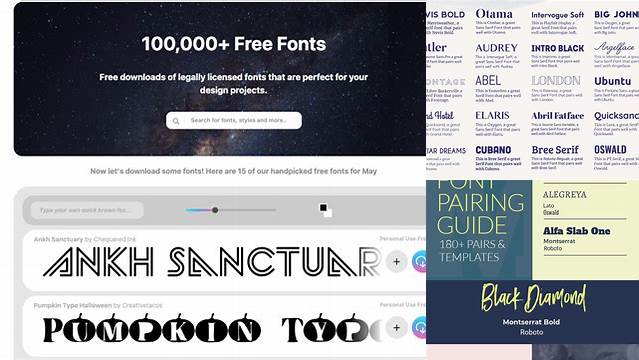
Top Free Font Downloads: Your Ultimate Guide
Hey guys, are you on the hunt for some awesome fonts but don't want to break the bank? You're in the right place! Finding the best sites to download free fonts can feel like a treasure hunt, but don't worry, I've done the digging for you. This guide is packed with the top spots to snag those perfect typefaces, tips on what to look for, and how to use them like a pro. So, grab a coffee, get comfy, and let's dive into the wonderful world of free fonts!
1. Unveiling the Giants: Top Platforms for Free Font Downloads
When it comes to finding the best sites to download free fonts, a few names always pop up. These platforms have built a solid reputation for their massive libraries, user-friendly interfaces, and, most importantly, the quality of the fonts they offer. Let's take a look at some of the giants in the font world and what makes them so special.
One of the first sites to check out is Google Fonts. It's a fantastic resource because it's completely free and open-source. Google Fonts boasts a huge collection, with a huge variety of styles, weights, and languages supported. You can easily browse fonts based on their categories, like serif, sans-serif, display, handwriting, and monospace. This is super helpful if you already have an idea of the vibe you are going for. Plus, they've got font pairing suggestions, which is a total lifesaver if you are not a typography expert. The best part? You can download the fonts or embed them directly into your website, making it super convenient for web design. The interface is intuitive and you can even try out the fonts in real time with your own text. It is easy to see why it's such a go-to for designers and developers alike. Another great advantage of Google Fonts is that it's integrated with a lot of design software, meaning you can easily access the fonts in programs like Canva or Adobe products.
Next up, we've got DaFont. This site is a true veteran in the free font game and has a vast library that's been curated over many years. DaFont is a paradise for finding a huge diversity of font styles, from classic to super quirky. The downside is that you should always read the license information on each font because some fonts are free for personal use, but may require a commercial license. This is crucial to avoid any copyright issues. They organize their fonts very creatively, using categories like 'theme', 'style', and 'author'. So whether you're searching for something fancy, something cute, or something with a sci-fi twist, it has a great way of making it easy to find what you are looking for. But always double-check the licensing before using them in any projects. It's generally a good idea to download fonts from reputable sites like these, because you are more likely to find safe and high-quality fonts.
Finally, there is Font Squirrel. This site is all about quality over quantity. Font Squirrel hand-picks the fonts, ensuring high quality and, most importantly, free commercial use. They have a great selection and are a good choice for anyone who is using fonts for business purposes. It features a user-friendly interface with a focus on licensing clarity. They provide a Font Identifier tool, which allows you to upload an image of a font and try to figure out what font it is. This is very useful if you are inspired by a font that you see somewhere and you are wondering how you can download it.
3. Font Styles Decoded: Exploring Serif, Sans-Serif, and Display Fonts
Now, let's get into the fun stuff – font styles! To find the best sites to download free fonts, you need to understand the different font classifications. Knowing the basic types of fonts will help you pick the perfect style for your projects. So, here's a quick overview:
Serif fonts are those classic fonts that have little strokes, or “serifs,” at the end of each letter. Think of fonts like Times New Roman or Georgia. These fonts are generally considered more traditional and are often used in body text, especially in print. They are known to be highly readable in longer passages because the serifs guide the eye across the page. Serif fonts can also convey a sense of elegance, authority, and history. They are a great choice if you want to add a classic and professional touch to your work.
Then, there are Sans-Serif fonts, meaning